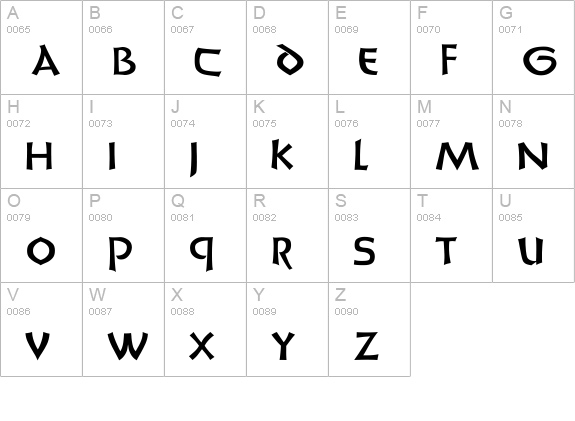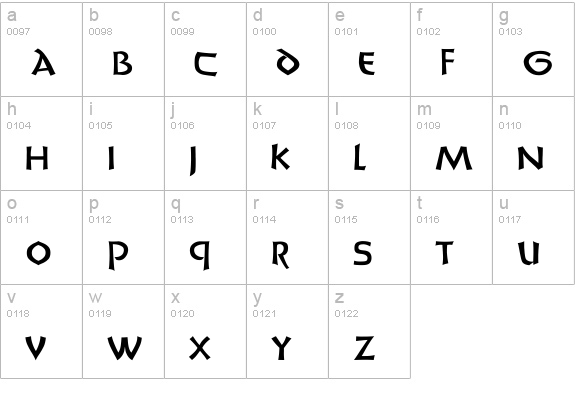
UnciaDis Wd font is a beautifully designed typeface that combines elegance and sophistication with a touch of playfulness. This unique font features bold, wide letterforms that make a statement and capture attention instantly. Whether you're designing a logo, creating a poster, or working on a branding project, UnciaDis Wd font will add a touch of modernity and creativity to your design. What's even better is that UnciaDis Wd font is available for free! Yes, you read that right. This stunning font can be freely downloaded at FontsMarket.com, a trusted source for high-quality fonts. Now you can elevate your design projects without breaking the bank. With its clean lines and distinctive character shapes, UnciaDis Wd font offers versatility and readability. It is perfect for headlines, titles, and any other text that needs to grab attention. The generous letter spacing and wide proportions ensure maximum impact, making UnciaDis Wd font an excellent choice for display purposes. The font's unique personality is further enhanced by its subtle curves and carefully crafted details. It exudes a sense of confidence and style that will elevate any design project. Whether you're creating a website, designing a magazine layout, or crafting eye-catching social media posts, UnciaDis Wd font will add a touch of sophistication to your work. Downloading UnciaDis Wd font is a breeze. Simply visit FontsMarket.com, search for UnciaDis Wd font, and start the download process. In just a few clicks, you'll have this stunning font at your disposal, ready to enhance your designs and make a lasting impression. So why wait? Take advantage of this amazing opportunity to download UnciaDis Wd font for free and unleash your creativity like never before. Get ready to captivate your audience with this bold and beautiful typeface that is sure to leave a lasting impression.